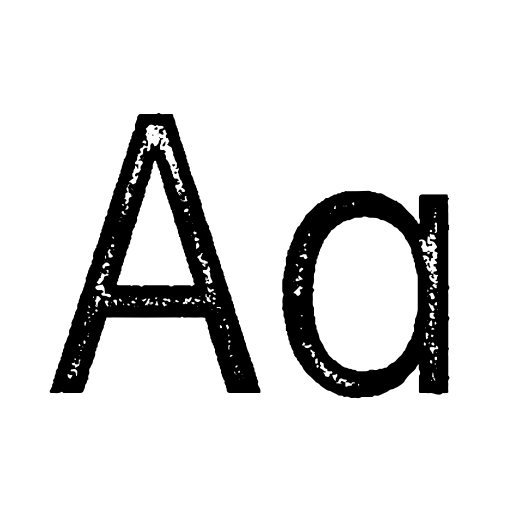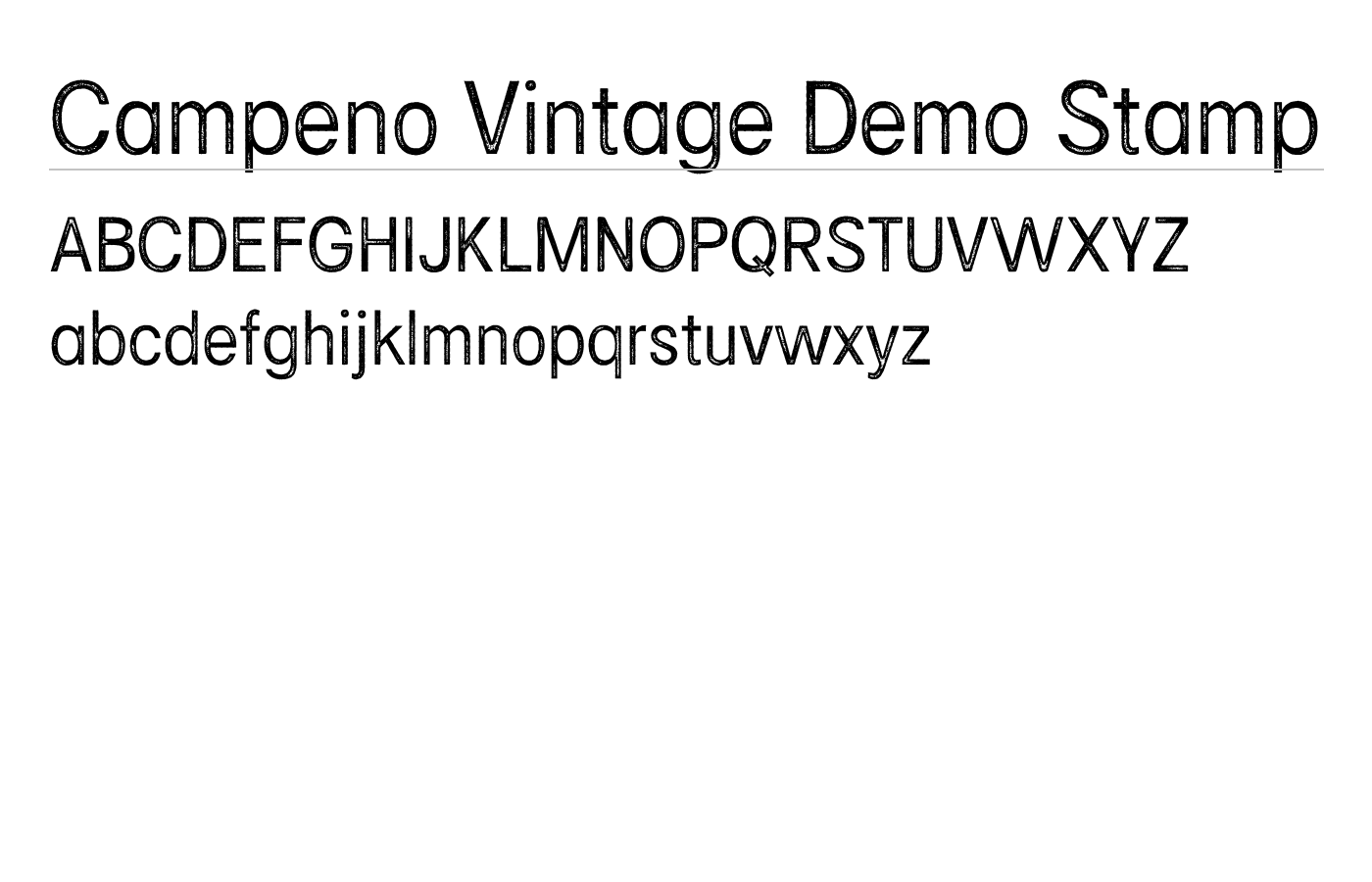
Campeno Vintage Demo is a distinctive sans serif font with a vintage, stamped texture that adds character and warmth. Its narrow letterforms and medium x-height give it a clean yet slightly worn look, perfect for designs seeking a nostalgic or handcrafted feel. This font works wonderfully for retro branding, packaging, and headlines that want to evoke a sense of authenticity and charm.
Campeno Vintage Demo Font
About Campeno Vintage Demo Font